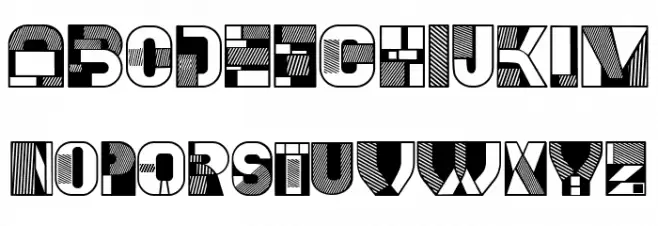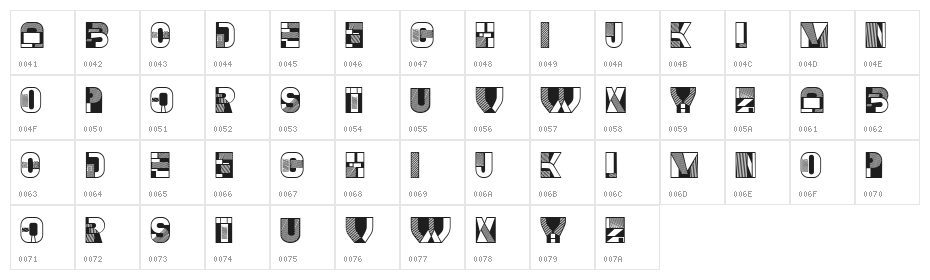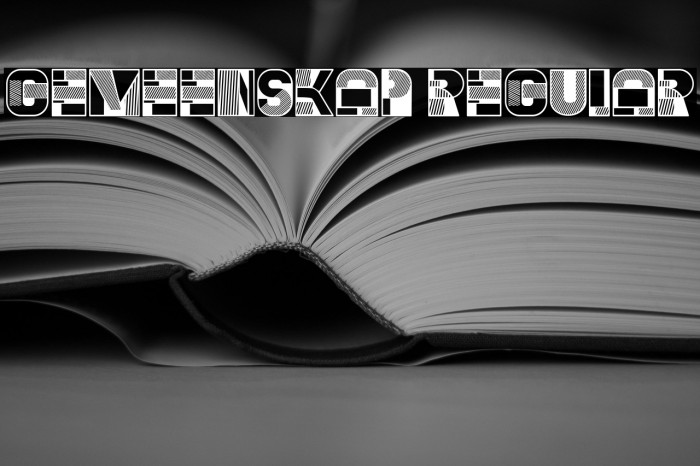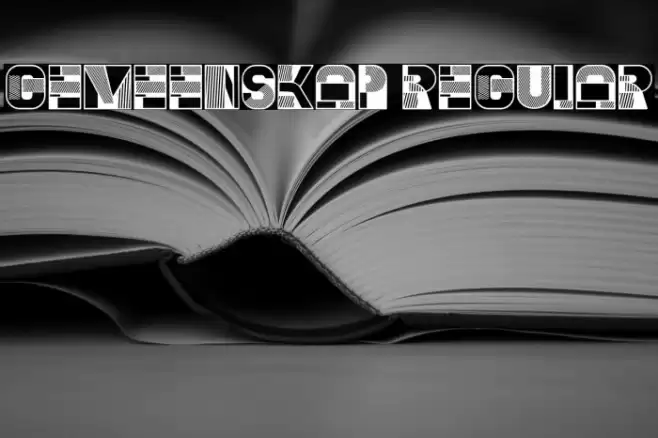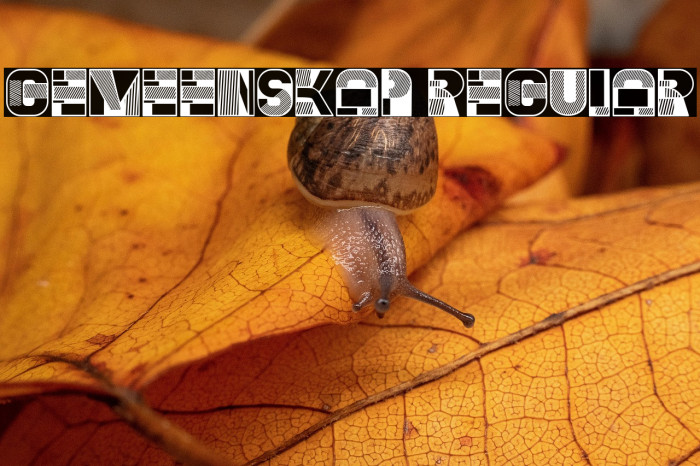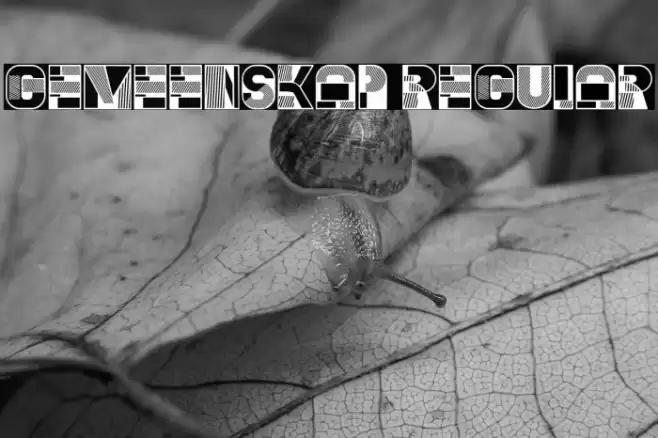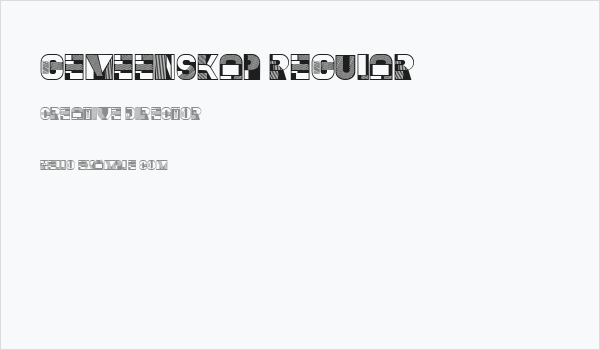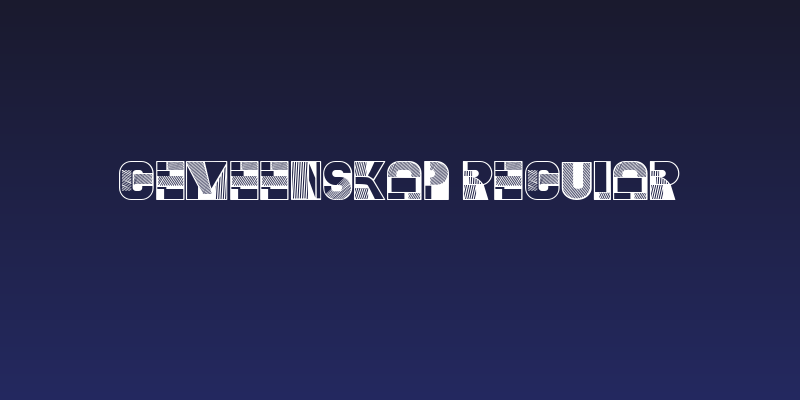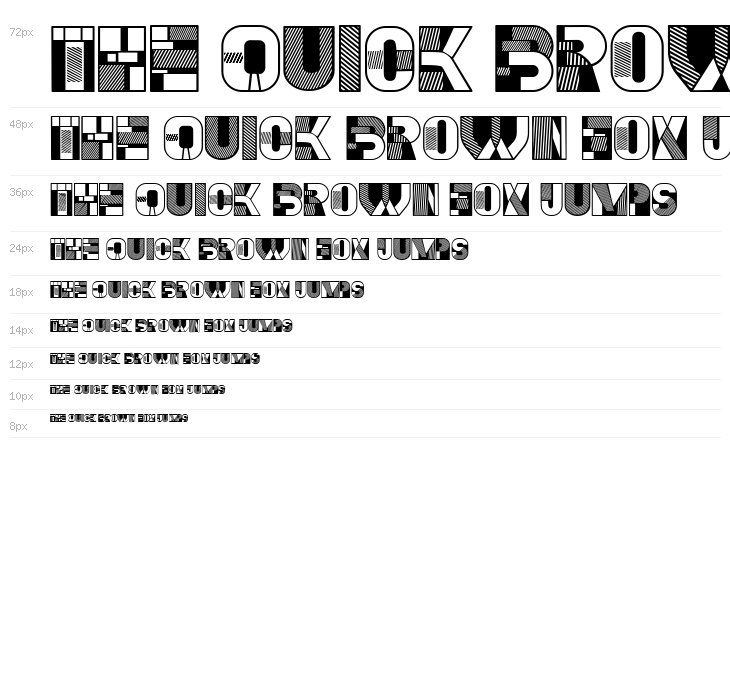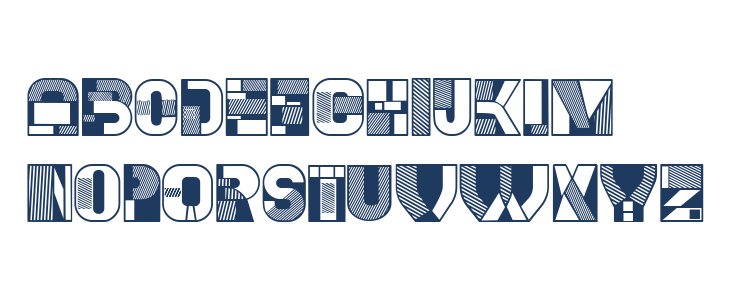
Gemeenskap Regular Font
Gemeenskap Regular Description
This font features a bold and decorative style with intricate patterns and geometric shapes filling each letter. The uppercase letters are designed with a mix of solid and striped sections, creating a dynamic and eye-catching appearance. The font has a modern and artistic flair, making it suitable for creative projects that require a strong visual impact. The unique design elements within each character add depth and texture, making it stand out in any design context.
| Proposed Projects | Ideal for posters, album covers, branding, and any project that requires a striking and artistic typeface. |